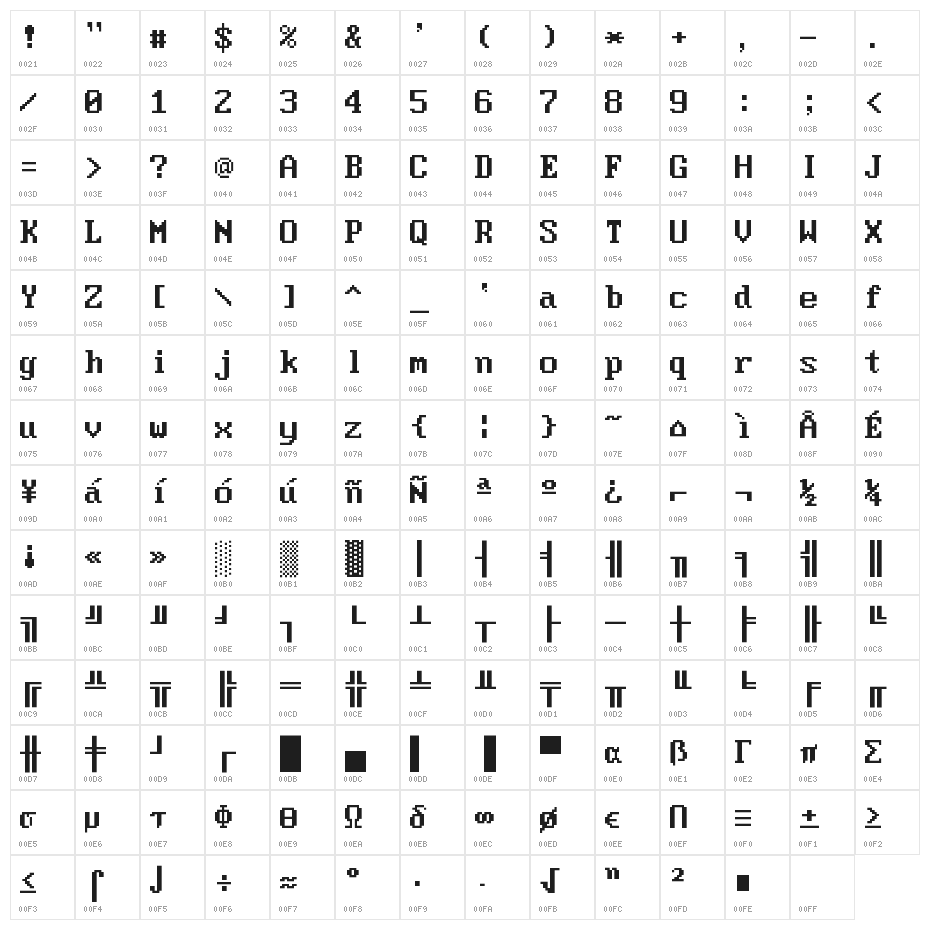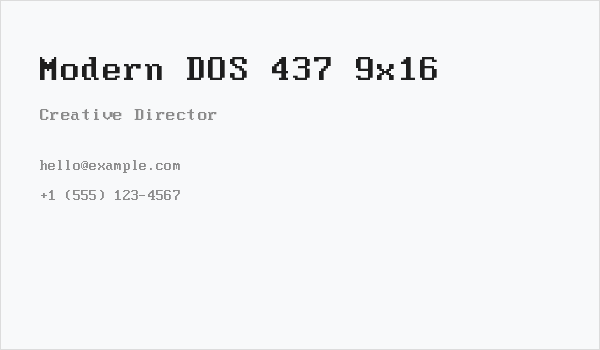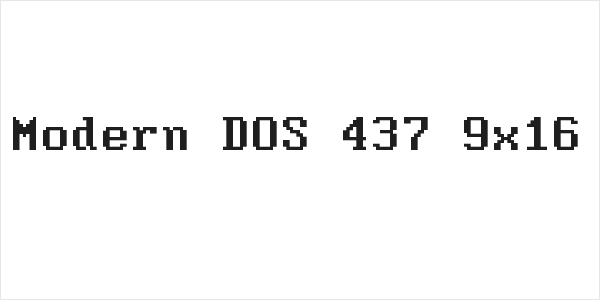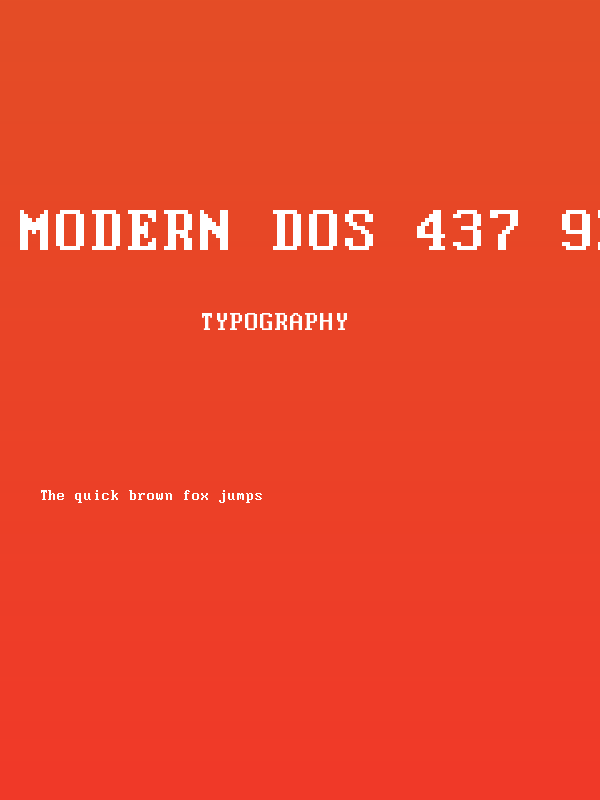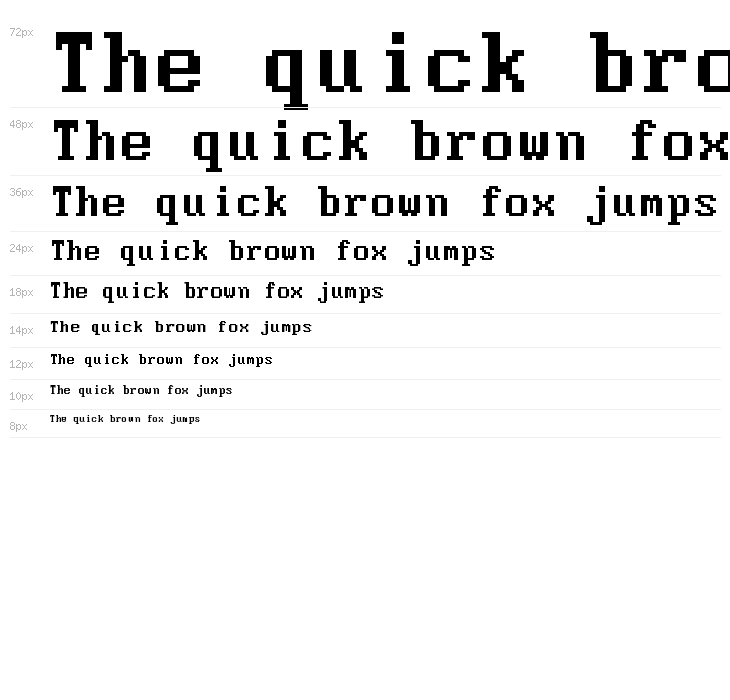
Modern DOS 437 9x16 Font
Modern DOS 437 9x16 Description
This font is a pixelated, monospaced typeface reminiscent of classic computer and console text. Each character is uniformly spaced, creating a consistent and structured appearance. The design features sharp, blocky edges and a uniform stroke width, typical of early digital displays. Its retro aesthetic evokes a sense of nostalgia, making it ideal for projects that aim to capture the essence of vintage computing or gaming. The characters are clear and legible, even at smaller sizes, due to their distinct, bold forms.
Overall StyleVintage
Use CaseHeadlines, Digital displays, Coding
Proposed ProjectsIdeal for retro-themed designs, video game interfaces, coding environments, and digital art projects.